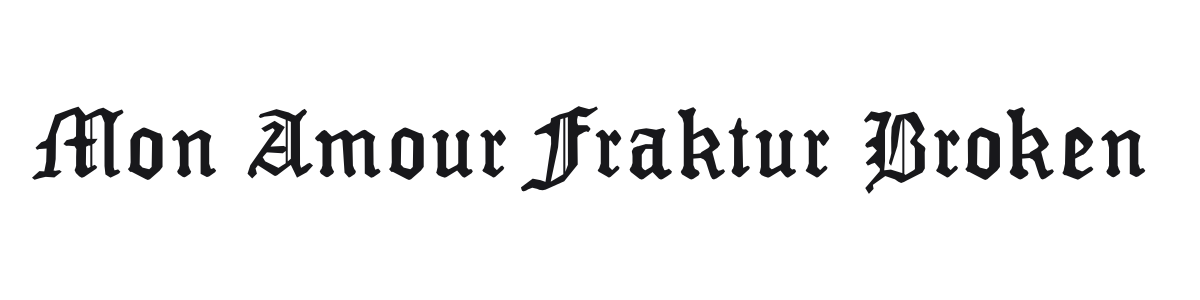
Mon Amour Fraktur Broken
Mon Amour Fraktur Broken is a bold blackletter face from Manfred Klein that draws on the fractured, angular tradition of German Fraktur lettering. The ornate strokes and heavy vertical contrast give it a distinctly medieval, gothic presence, but with enough clarity to stay readable at headline sizes. Best kept to titles, drop caps, certificates, or any context where traditional blackletter formality sets the tone.